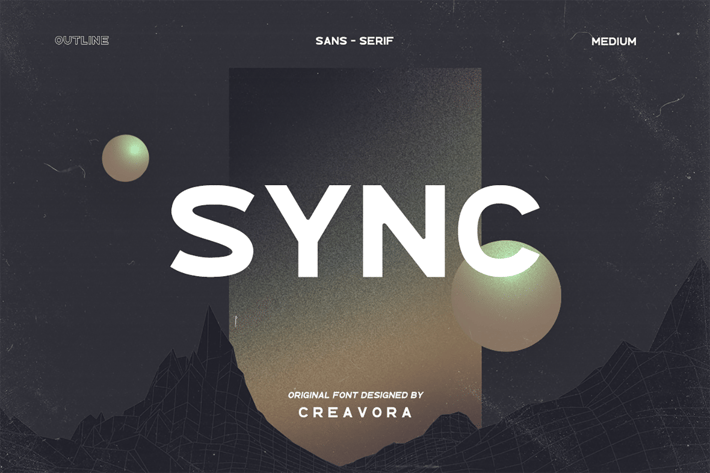
SYNC - Modern Sans Serif Font
Creavora
Introducing SYNC Font
SYNC is a timeless sans serif with an elegant font style. With Regular & Outline Style, SYNC works great for magazine titles, branding, advertisements, quotes, and web titles in a minimalist style as in the sample preview above.